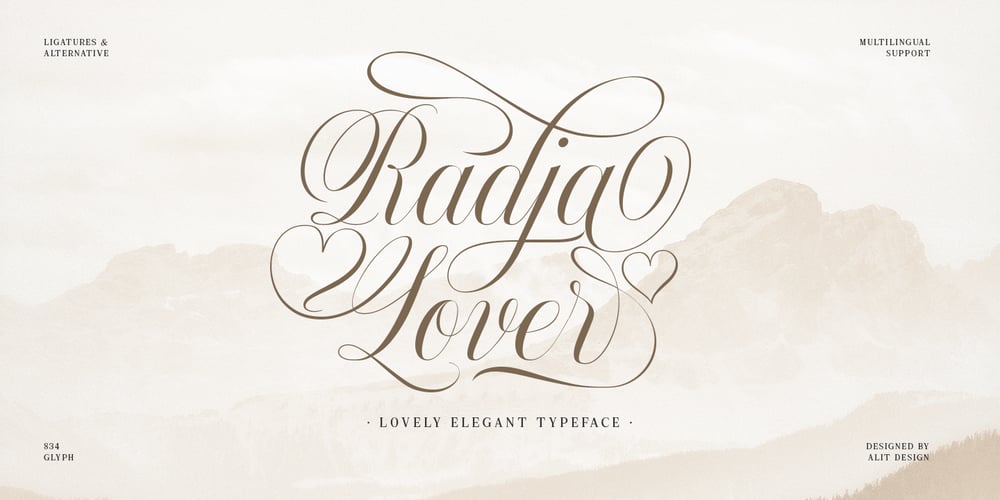
Radja Lover Font Family was designed by Alit Suarnegara and published by Alit Design. Radja Lover contains 1 styles and family package options. IntroducingRadja Lover Script Font🖤The Radja Lover Script Font 🖤 is valentines day inspired font made for romance theme. The Radja Lover Script Font adheres to a simple and elegant modern script style, besides that this font has a unique swash in the shape of a heart that can be used for unique love designs.Very suitable for use in making greeting card designs, Instagram posts, logo designs, wedding texts, romance quotes and so on, the first is about love.Apart from that this font is very easy to use in both design and non-design programs because all alternates and glyphs are supported by Unicode (PUA).